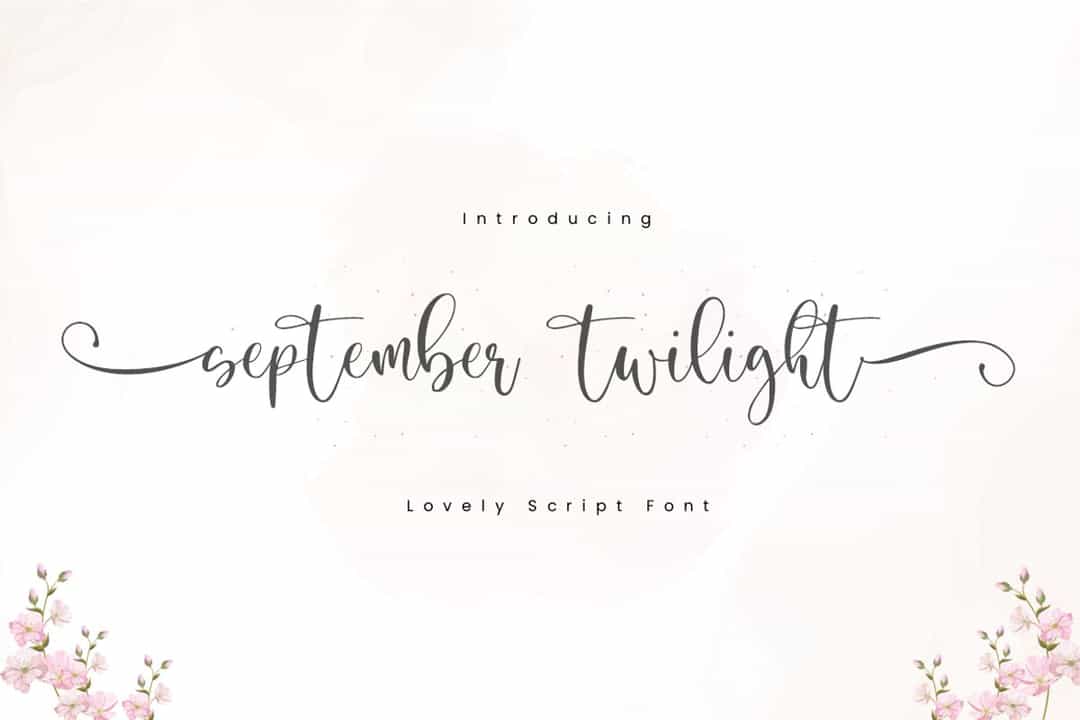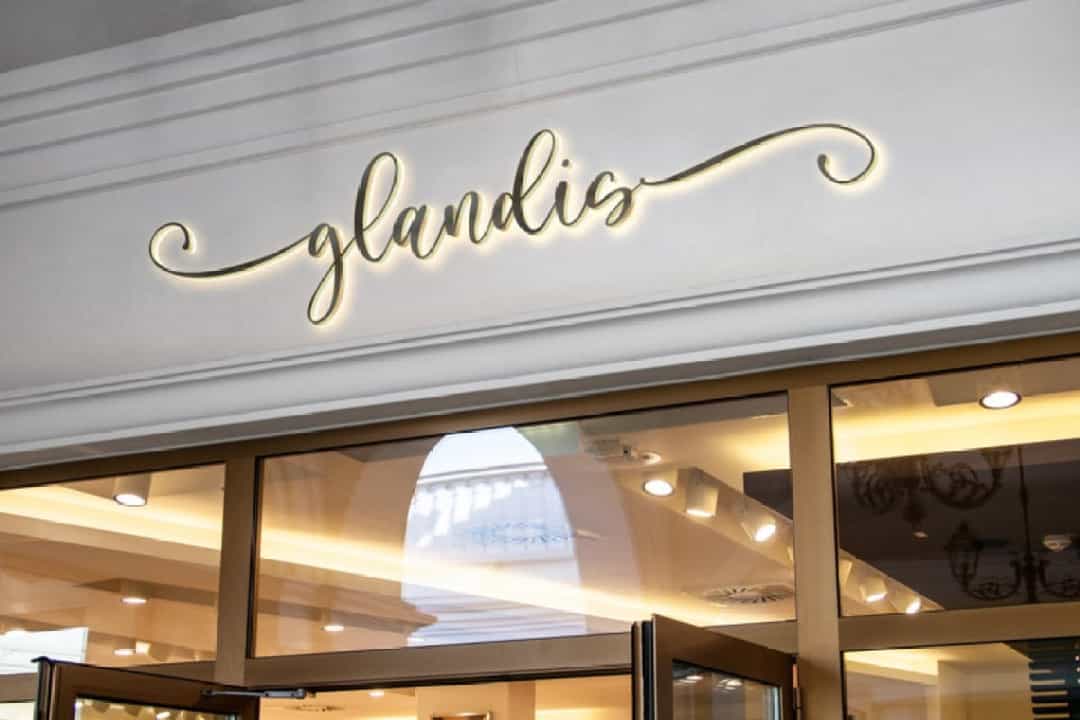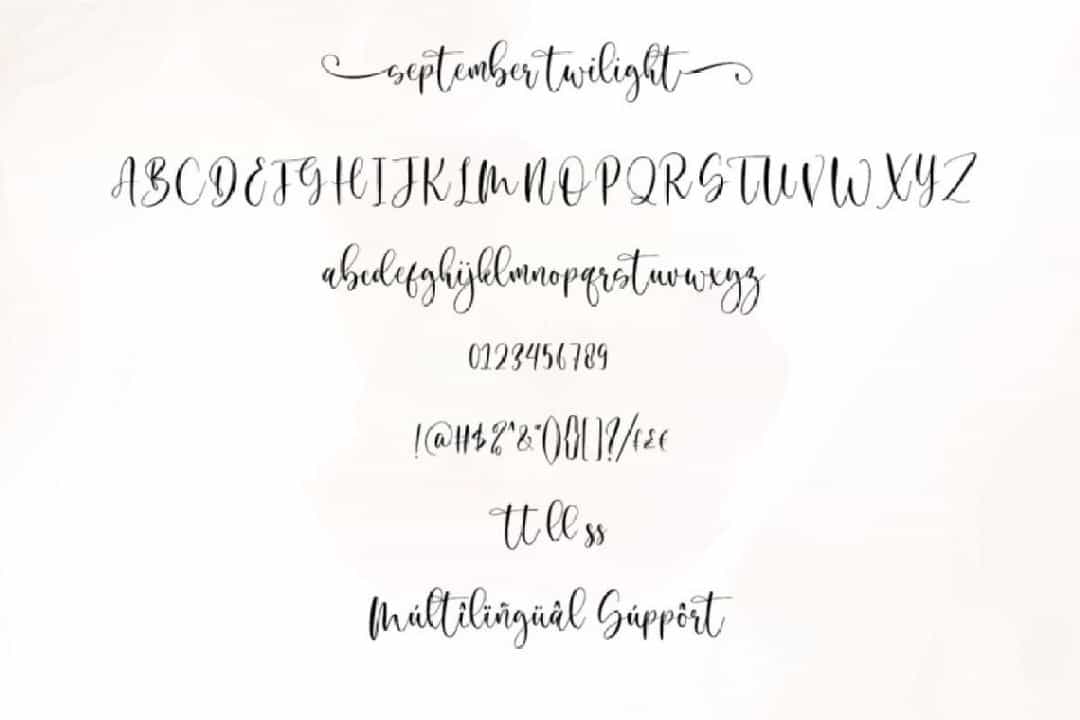
Discover September Twilight Font, part of the Calligraphy Script Personal collection—a versatile and unique font perfect for adding a personal touch to your projects. Download it for free and enjoy crafting designs with style, from invitations to social media posts. This font is available exclusively for personal use, giving you the freedom to create without limits. Unlock your creativity with September Twilight Font today!
September Twilightis an elegant calligraphy font that you can use for branding purposes, invitation cards, stationery items, wedding designing and advertisements, social media post, packaging for the product, labels, photographs, watermarks, special occasions or any other purpose you can imagination!